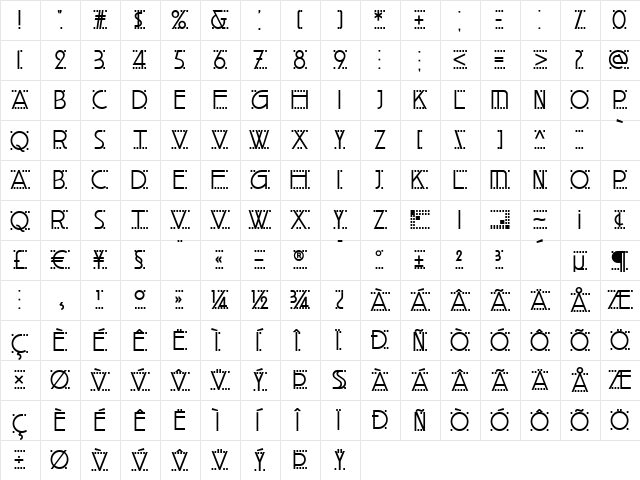
Olbrich Display NF Regular
Design Context for Olbrich Display NF Typeface
Olbrich Display NF is built around its visual character rather than neutral utility — its distinctive forms are designed to make an impression at display sizes.
Font Pairing: Pair with a clean neutral sans-serif for body copy to let Olbrich Display NF's character lead without overwhelming the composition.
Pro Tip: Use Olbrich Display NF exclusively at display sizes — it was designed to be seen, not read at length. Let a neutral companion handle body copy.